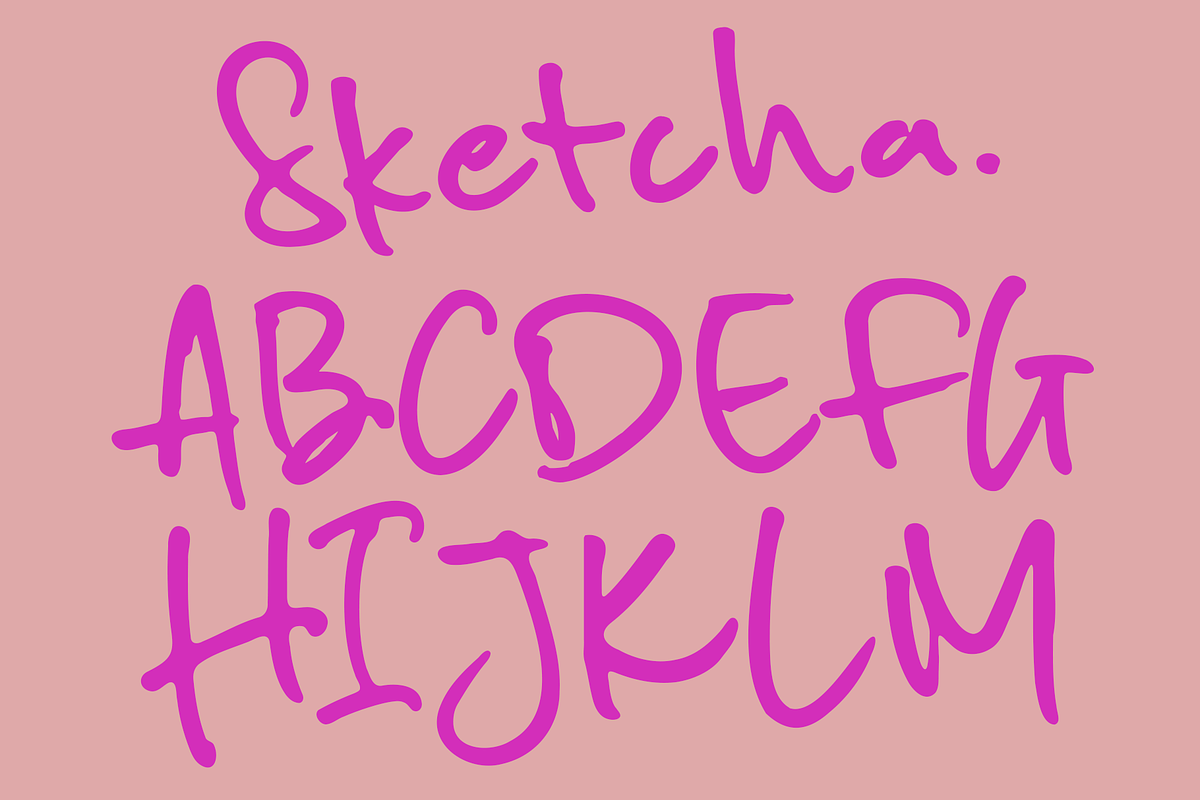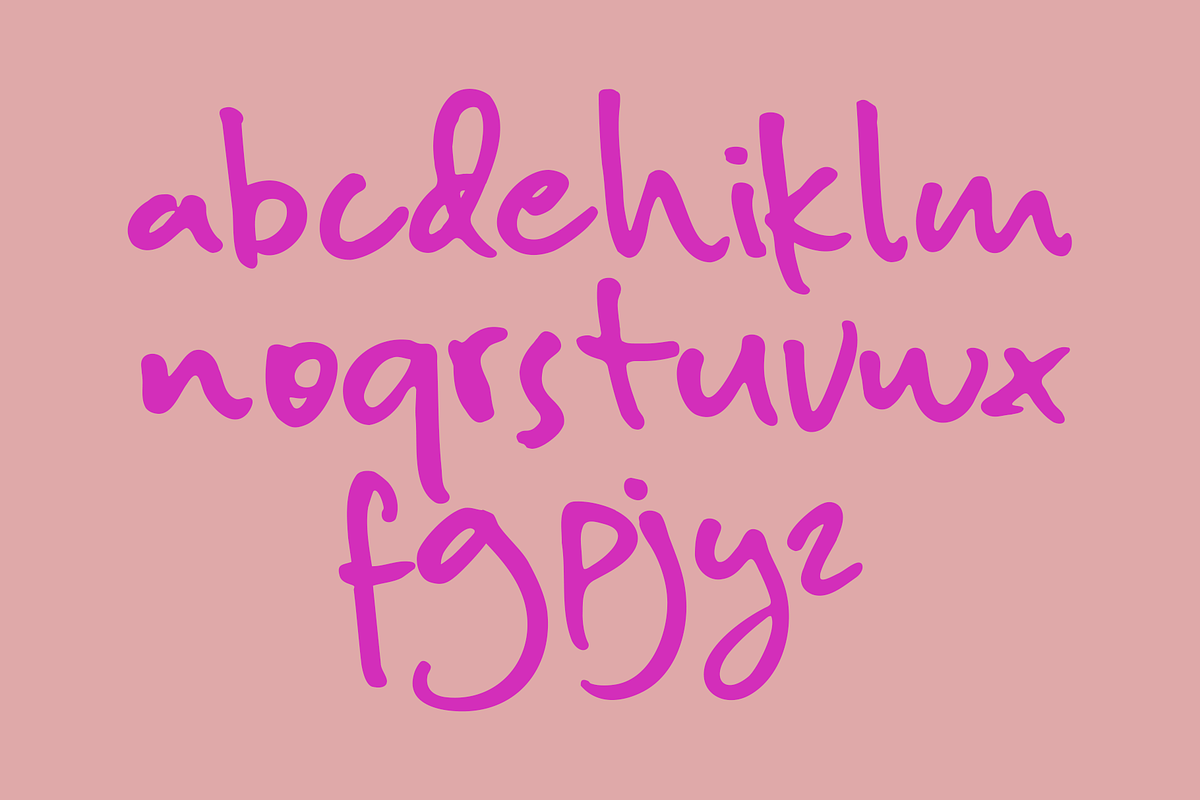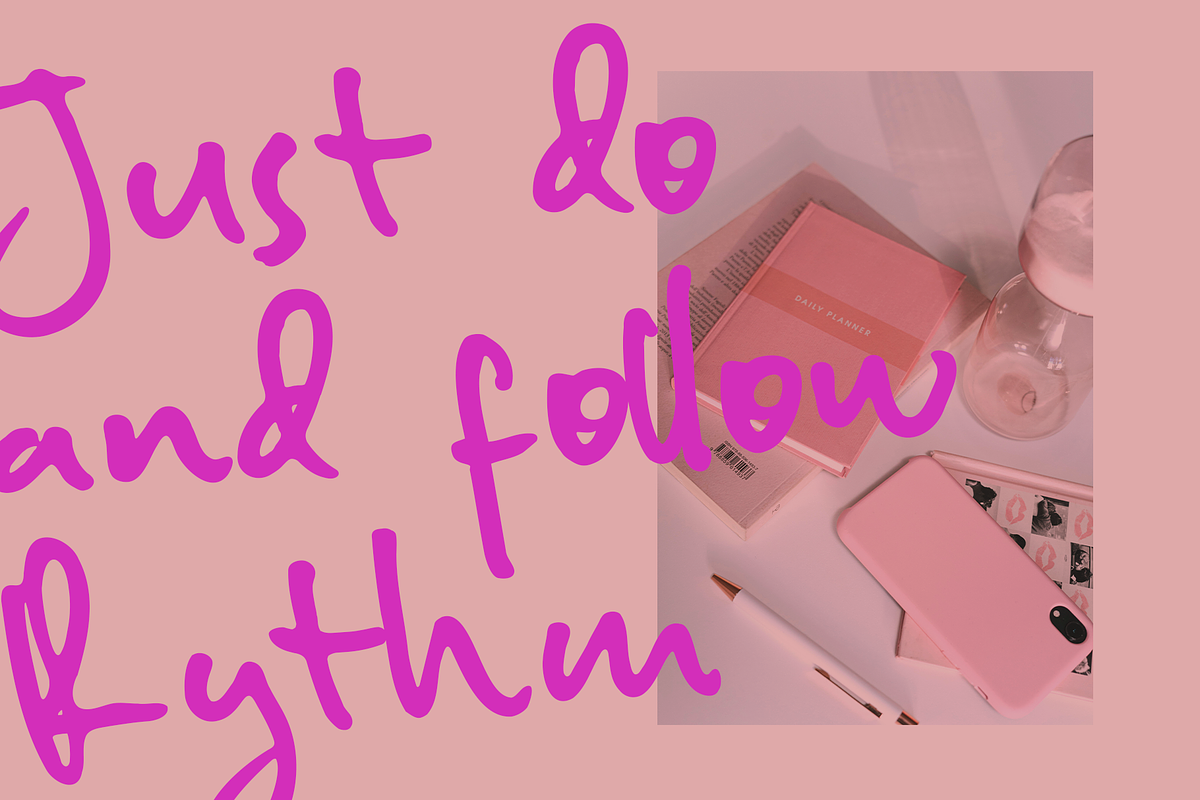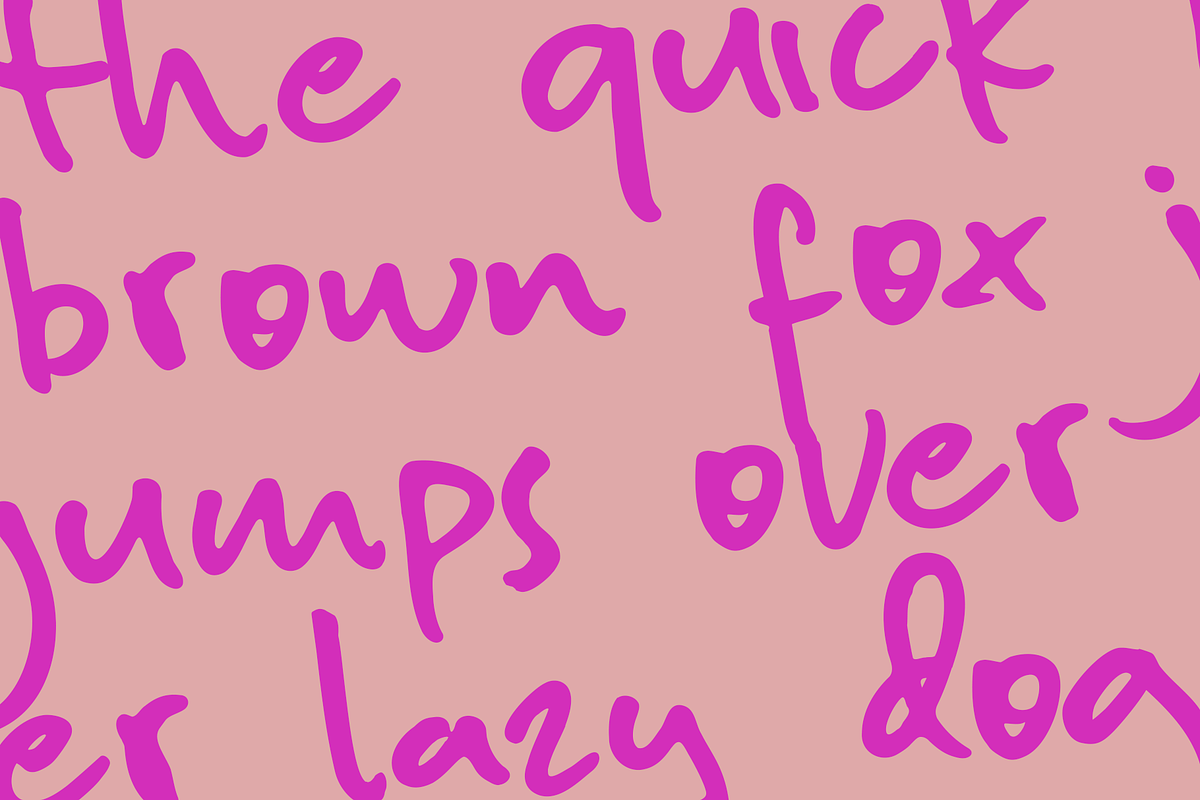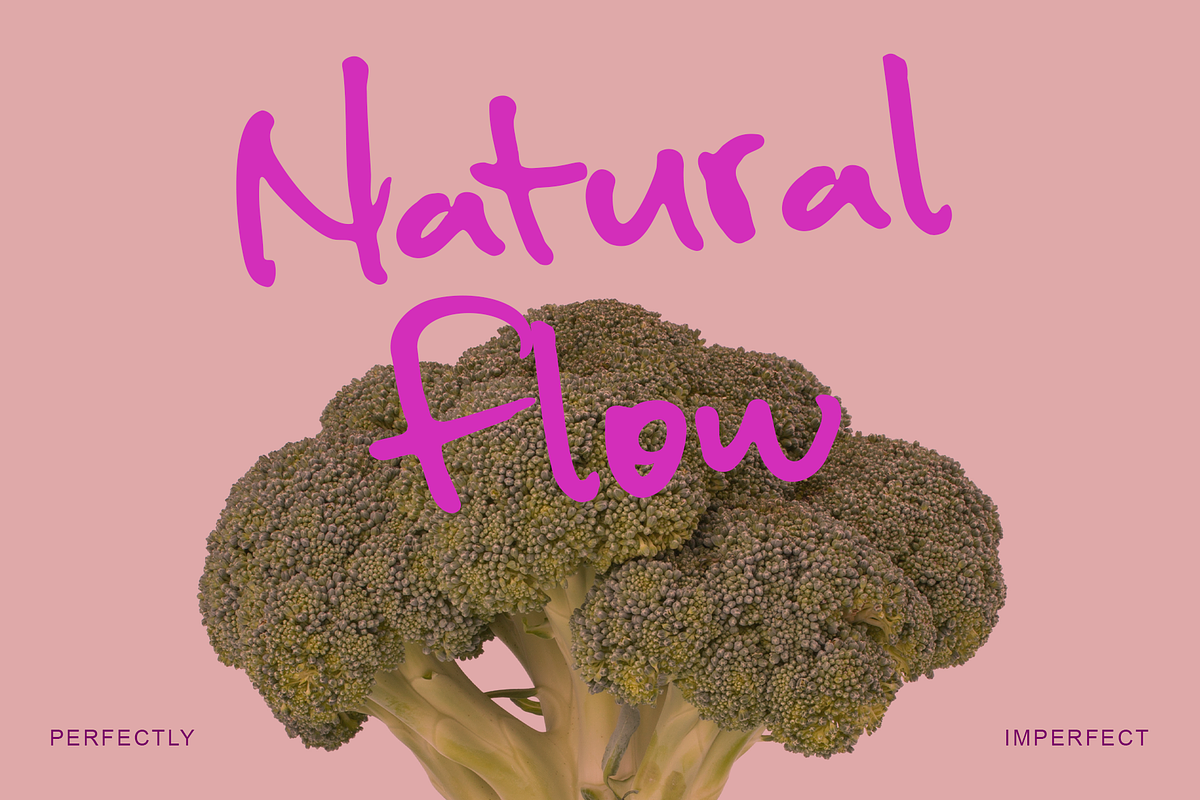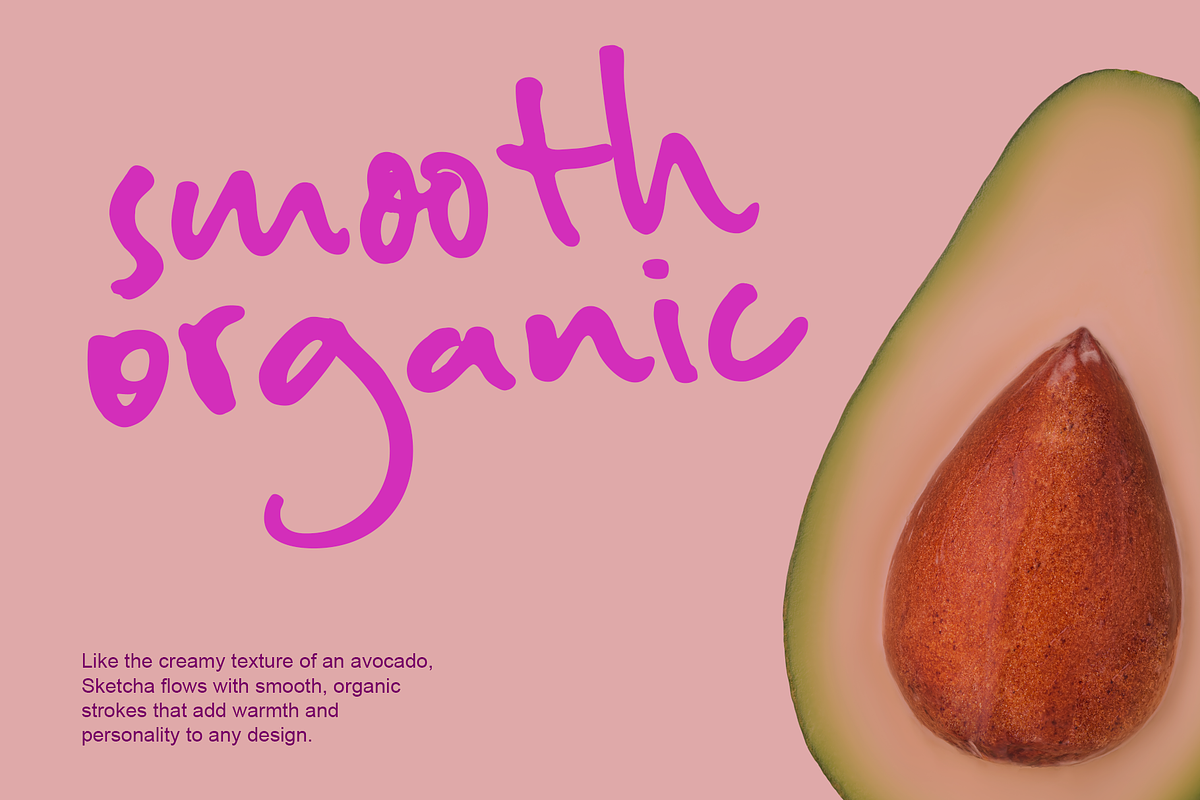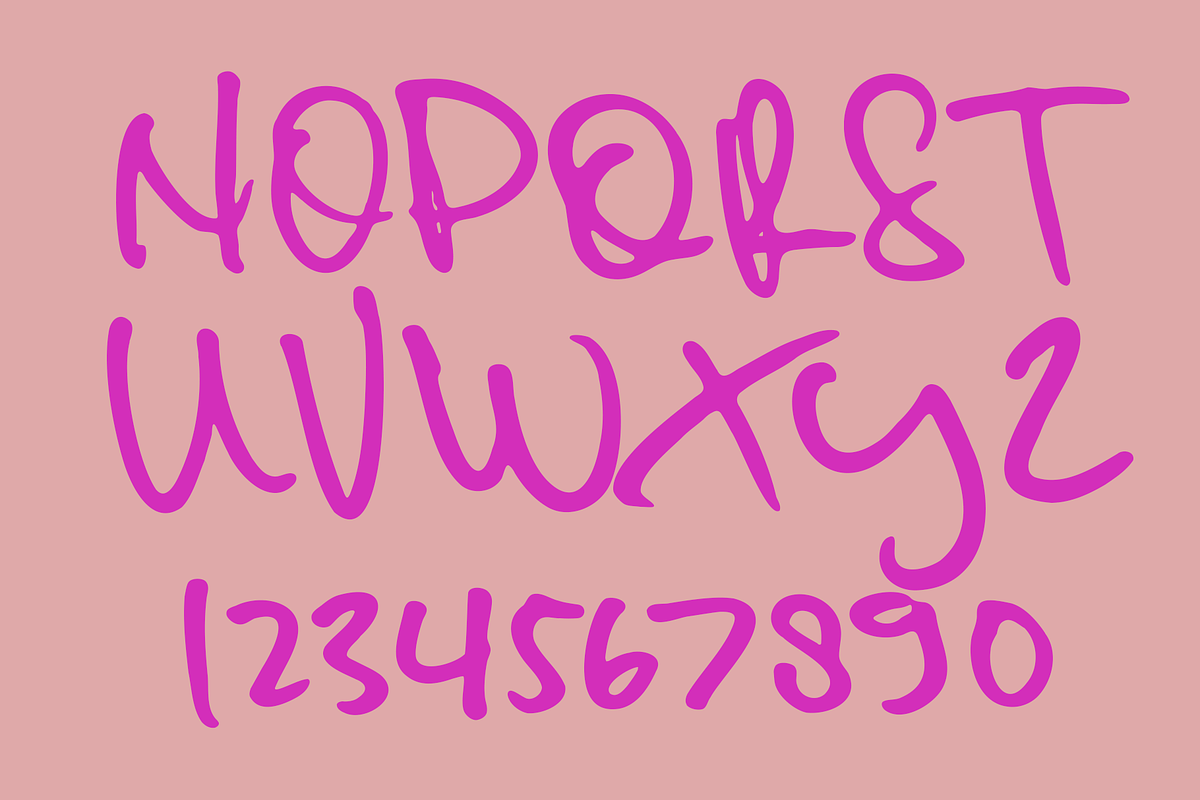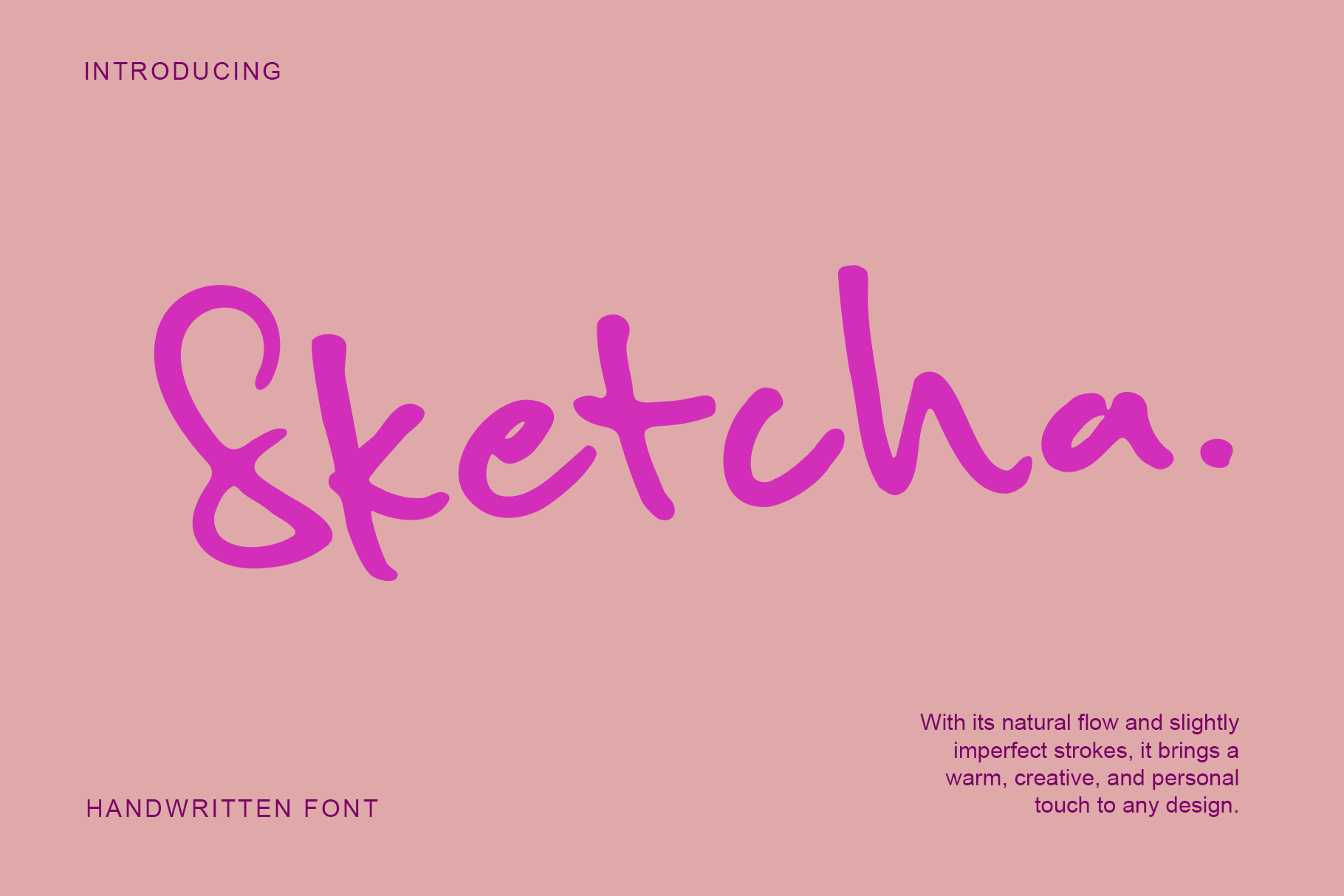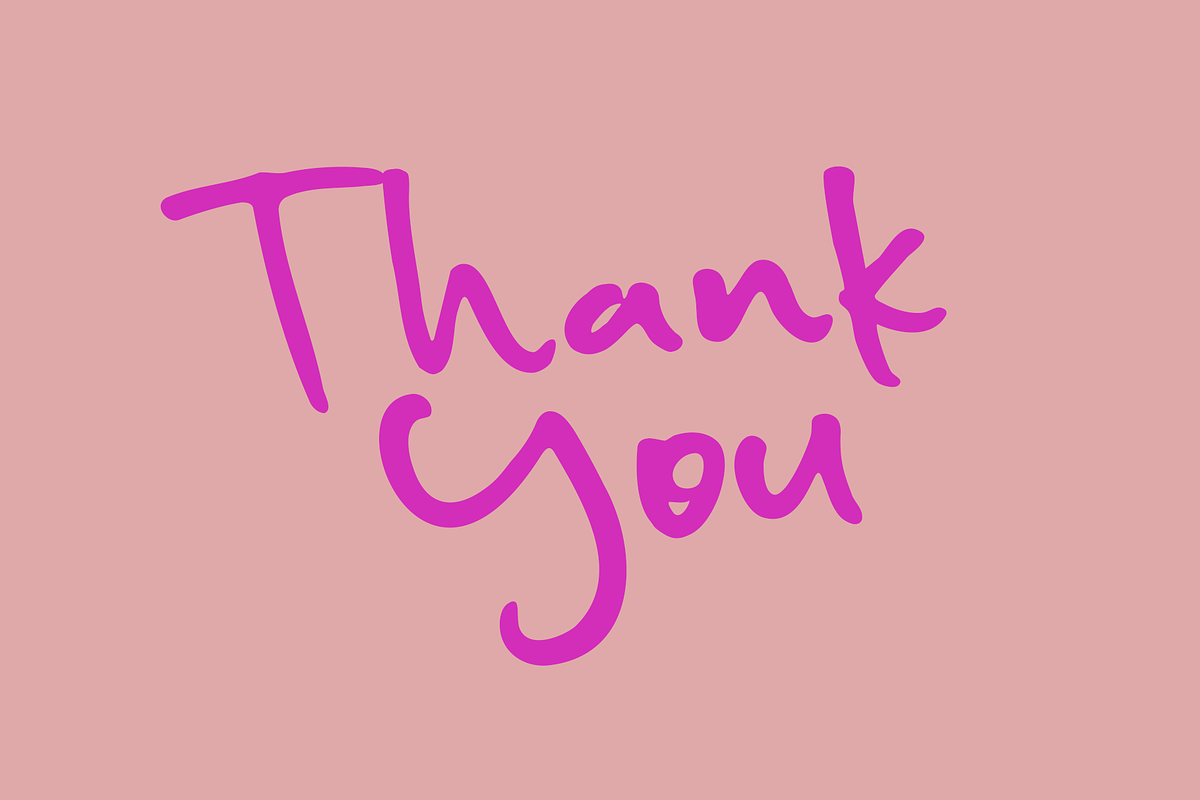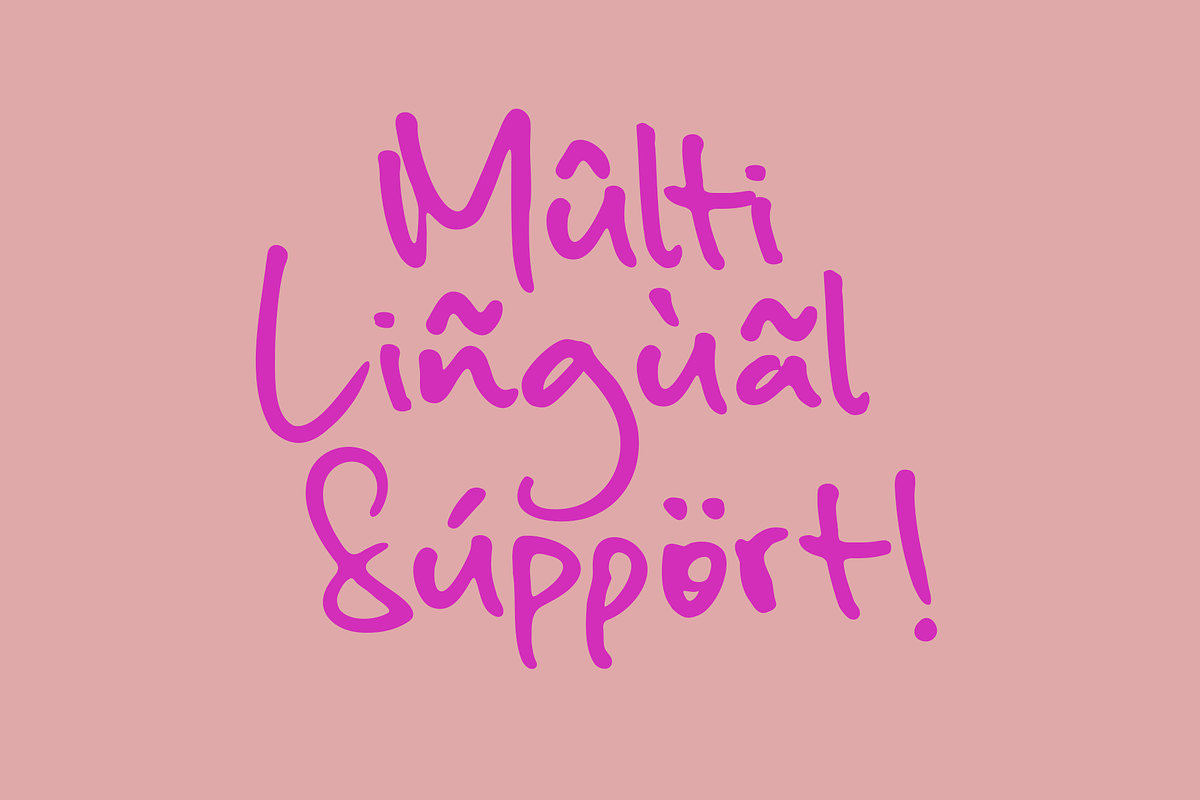
Sketcha – Handwritten Font
Sketcha – Smooth & Organic Handwritten Font
Sketcha is a smooth and organic handwritten font that captures the effortless flow of natural handwriting. Inspired by freehand sketches and casual notes, it brings a warm and personal touch to your designs.
With its soft curves, uneven strokes, and balanced rhythm, Sketcha feels both playful and perfect for branding, packaging, quotes, invitations, and social media posts. Whether you’re designing something cheerful or heartfelt, Sketcha adds that human charm every project needs. It comes with a full set of uppercase and lowercase letters, numerals, punctuation, and multilingual support.
Let your words flow naturally with Sketcha—smooth, organic, and full of personality.